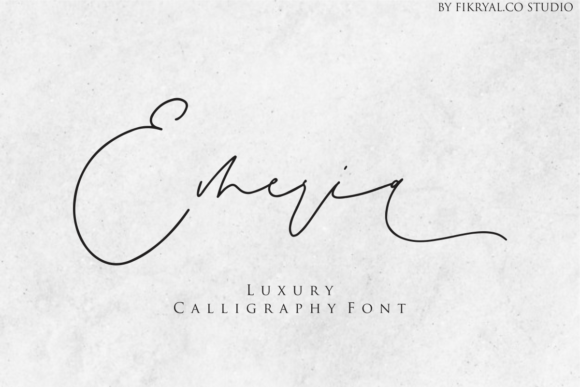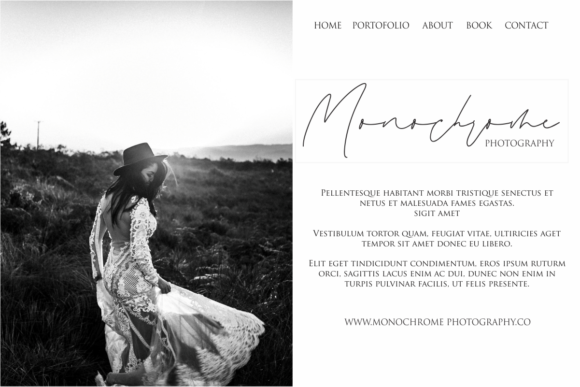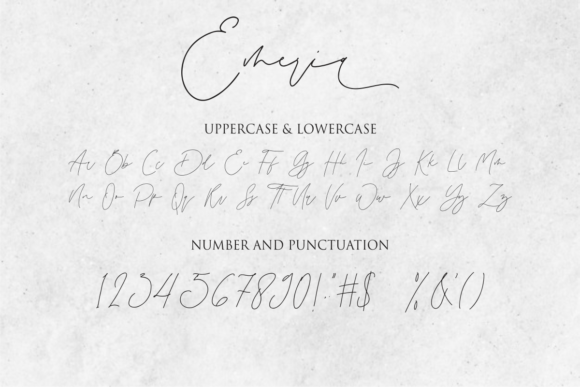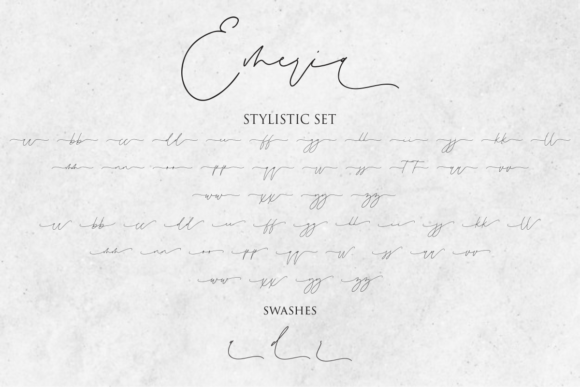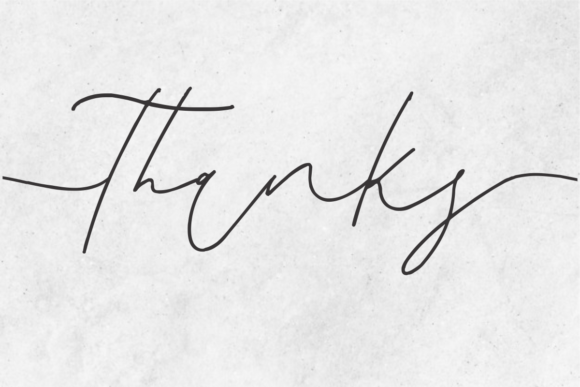
Emeria Font
About Emeria Font
Emeria is a modern handwritten font carefully created with a touch of elegance. This is a beautiful combination of timeless elegance and authentic calligraphy. It features an incredibly classic style, while still keeping a friendly feel. Emeria is the perfect font for making original and outstanding designs.